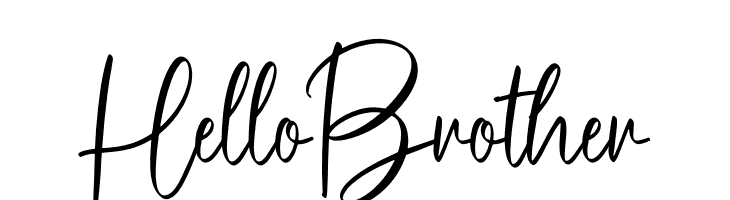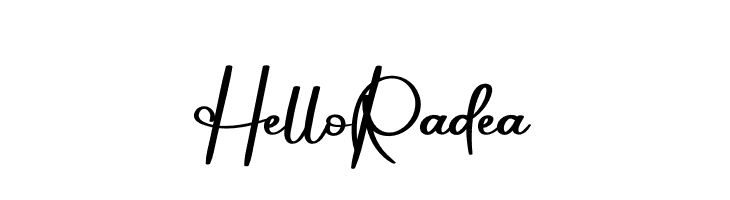
( Fonts by Etik Fatimah )
Handwritten cursive script font.
( Fonts by Yusa Studio )
Playful, bold handwritten font.
( Fonts by Scratchones )
Casual handwritten script font.
( Fonts by scratchones )
Elegant script font with a handwritten style.
( Fonts by Letterhend Studio )
Bold, modern handwritten script font.
( Fonts by ONG Type )
Playful handwritten font with a casual style.
( Fonts by Scratchones )
Elegant cursive script with a handwritten style.
( Fonts by Inermedia Studio )
Playful handwritten font with a whimsical style.
( Fonts by Letterafa Studio )
Playful handwritten font with a casual style.
( Fonts by Andi Moz )
Playful handwritten script font.